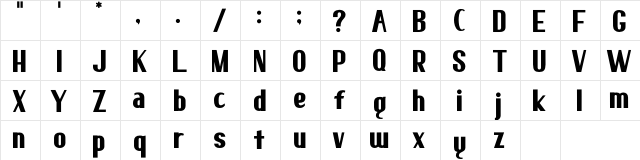
elma 02 Regular
| Designer | Muhammad Romzul Khoir |
elma 02 offers clean, dependable letterforms without strong stylistic allegiance, making it a practical choice for designers who need flexibility.